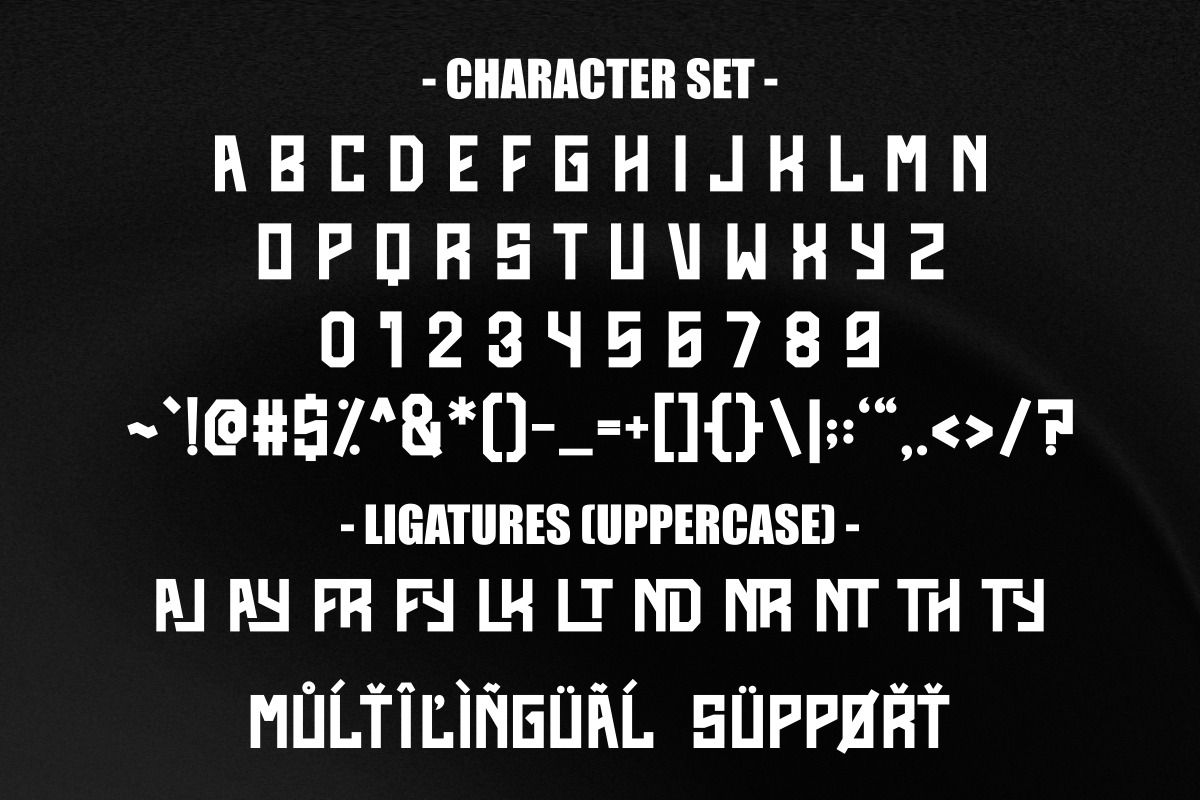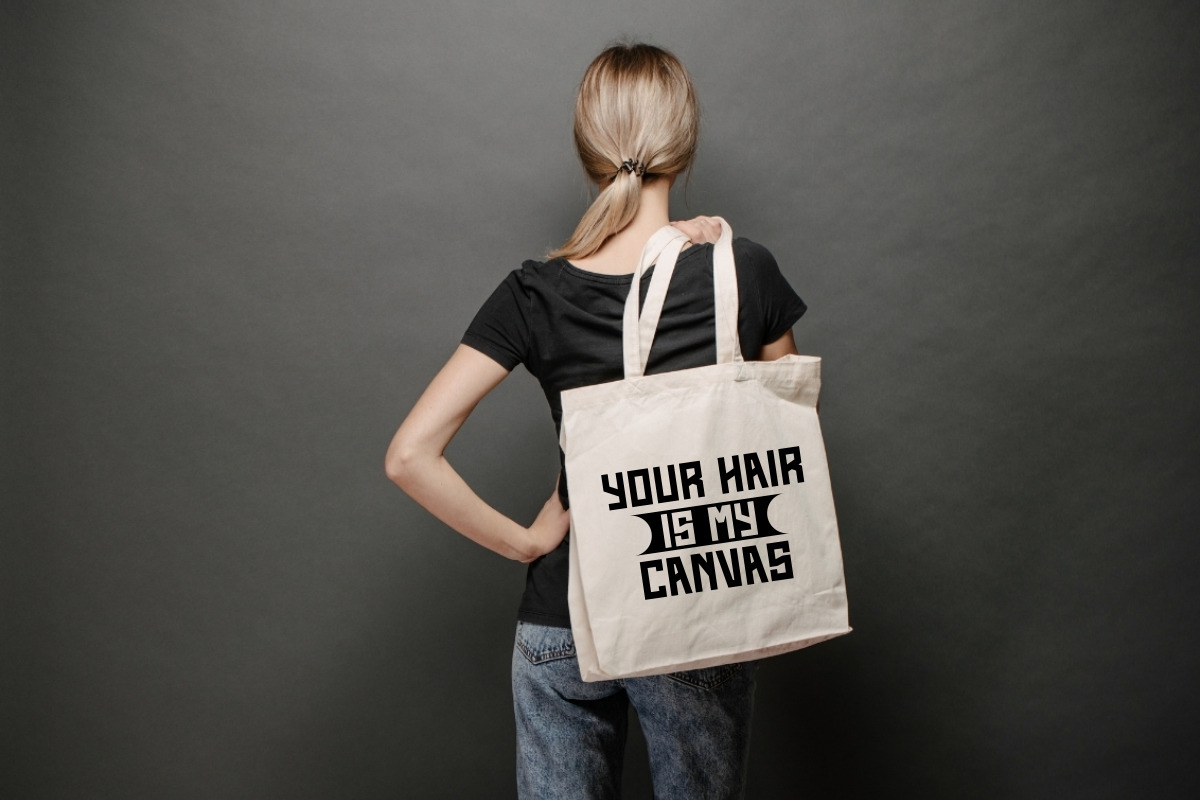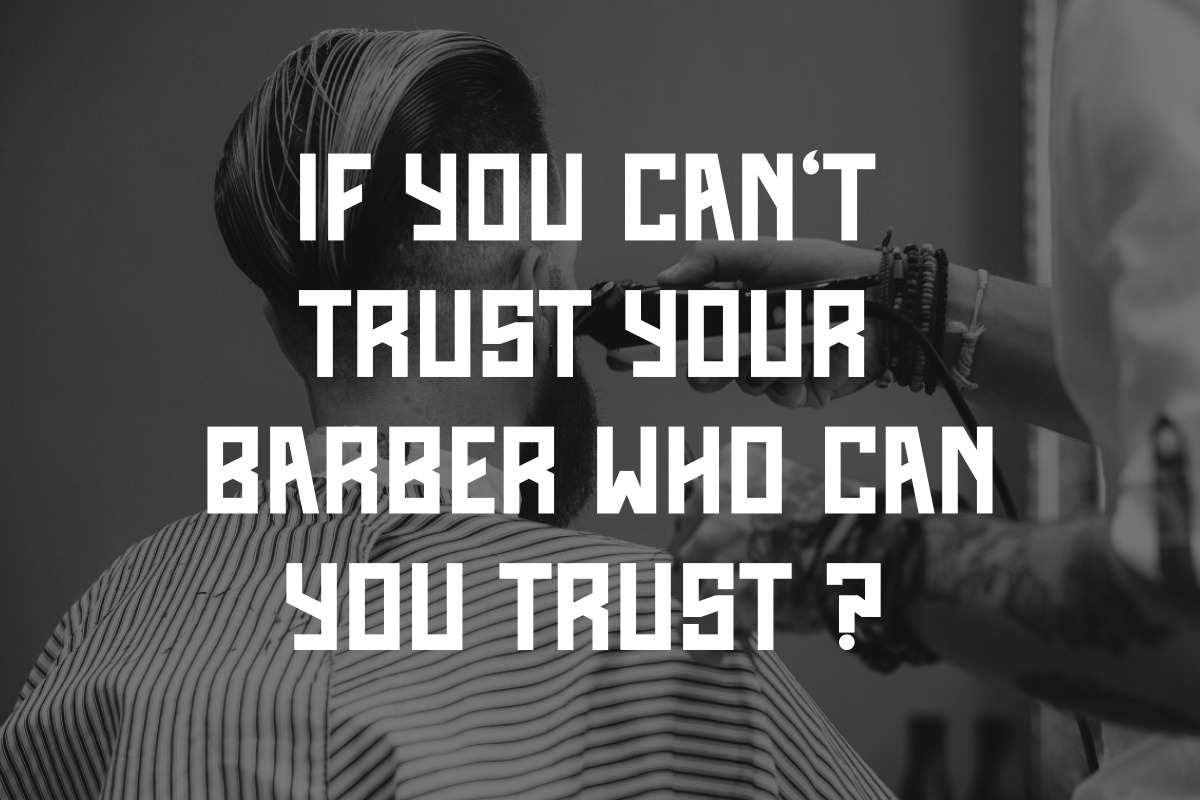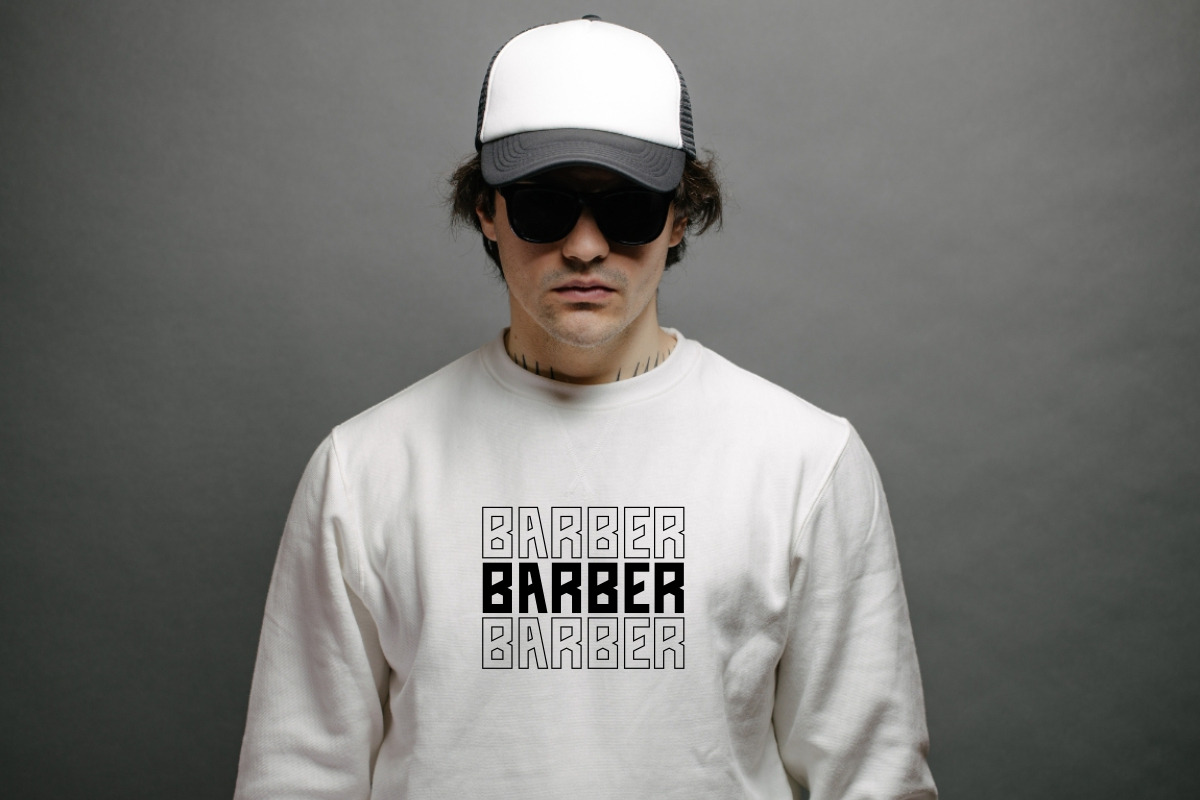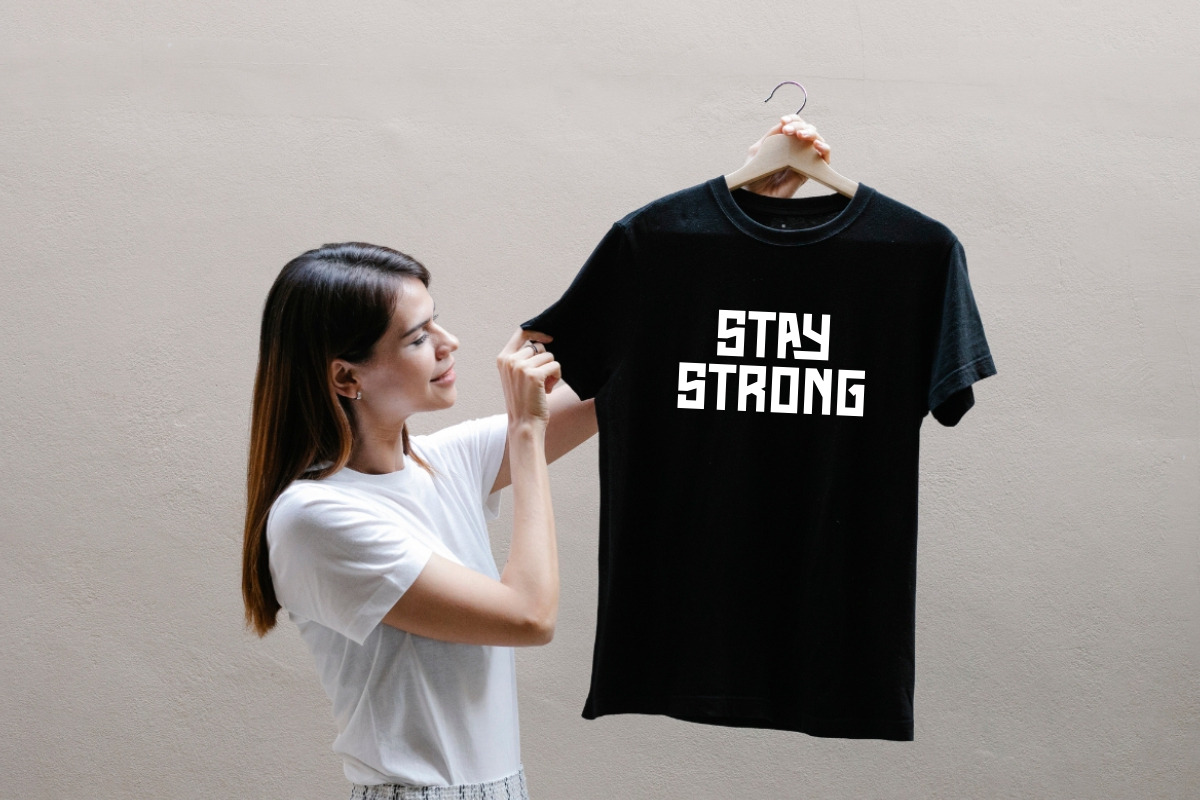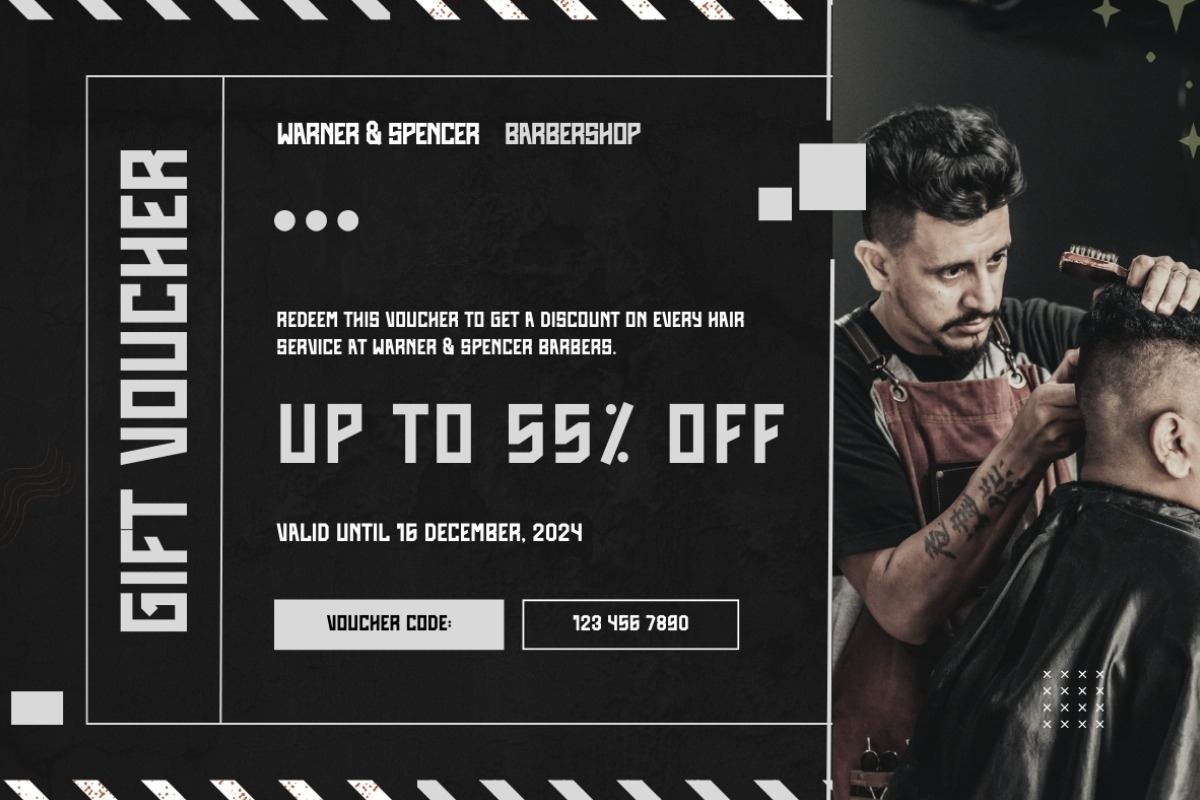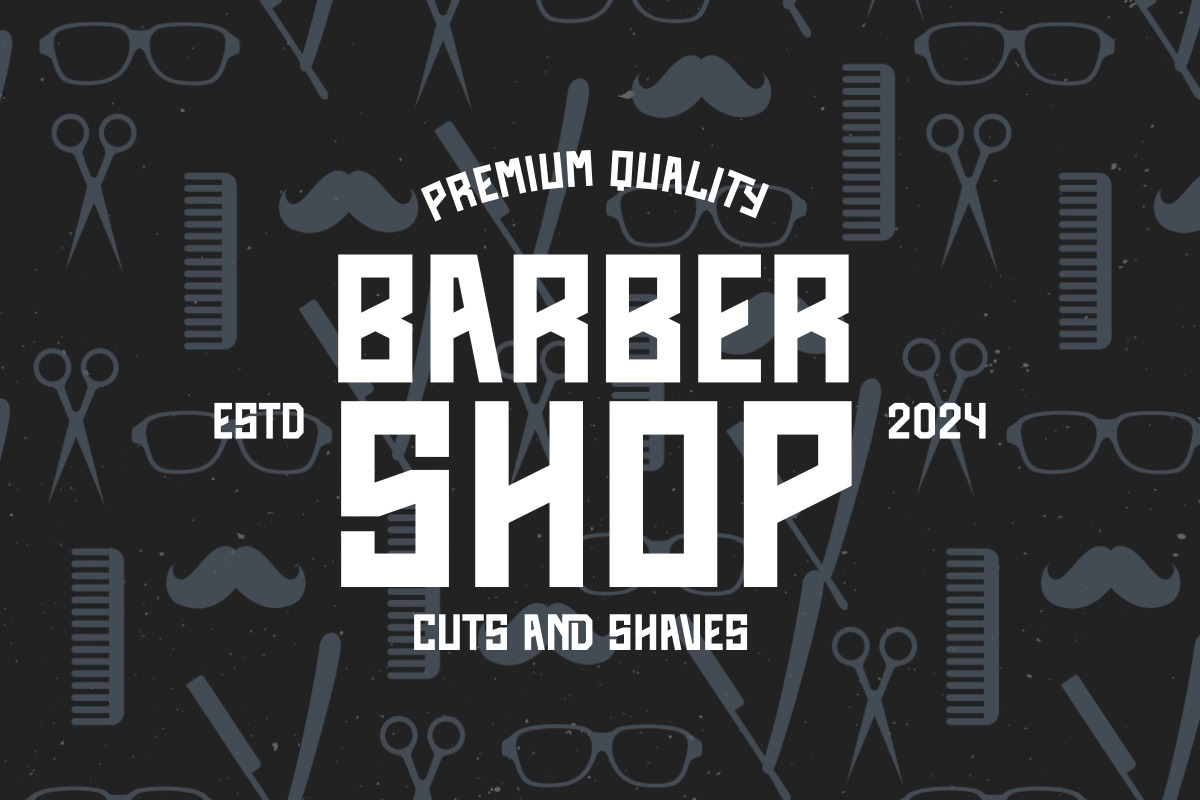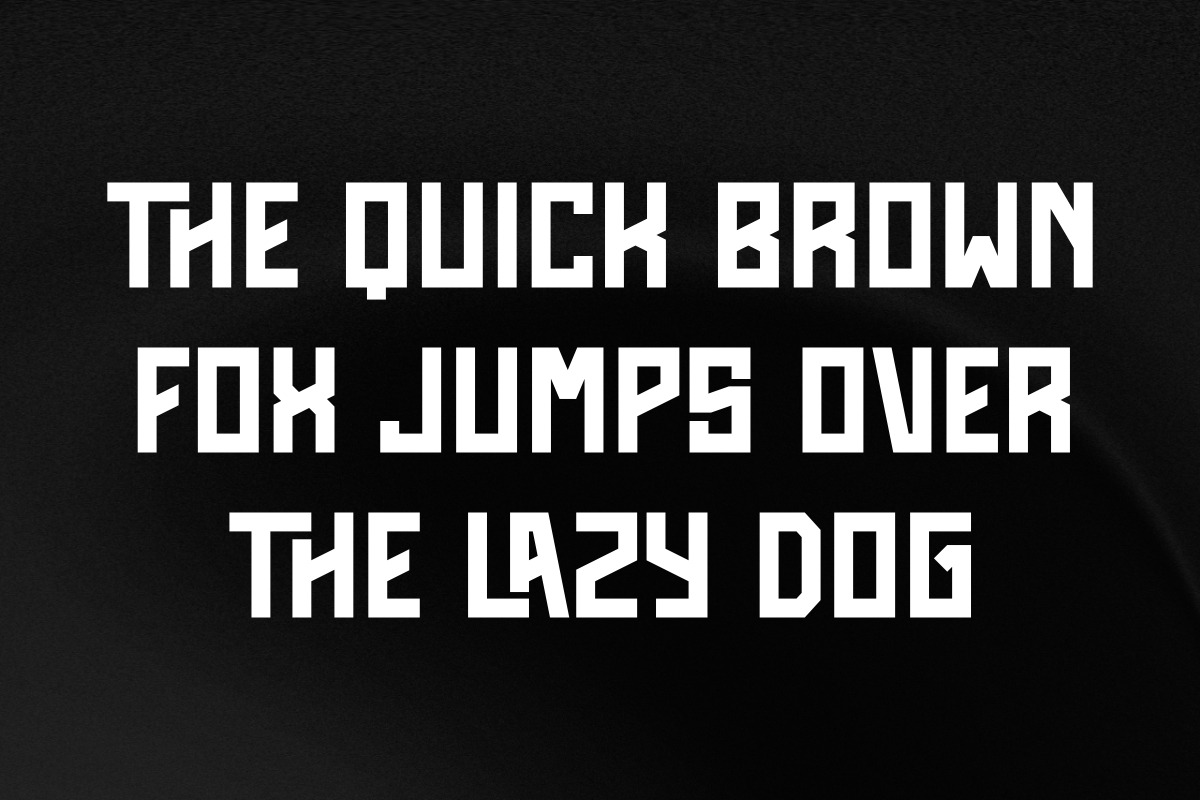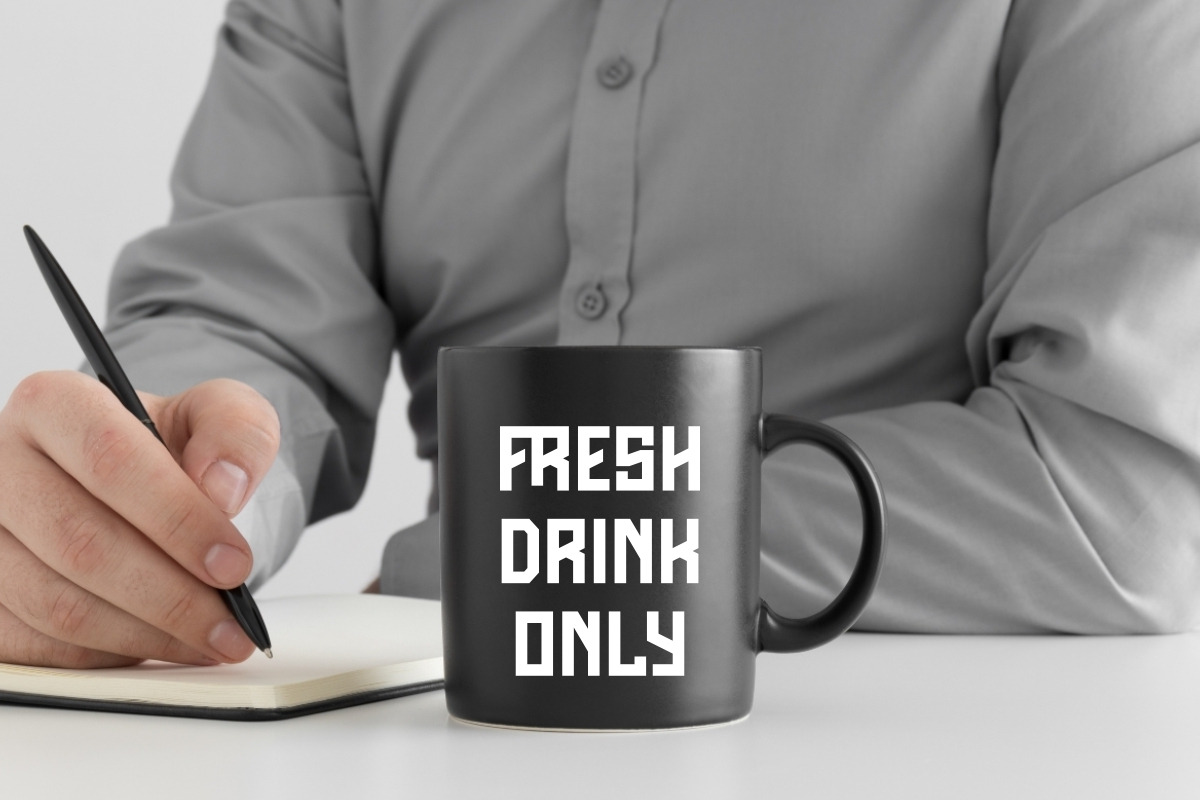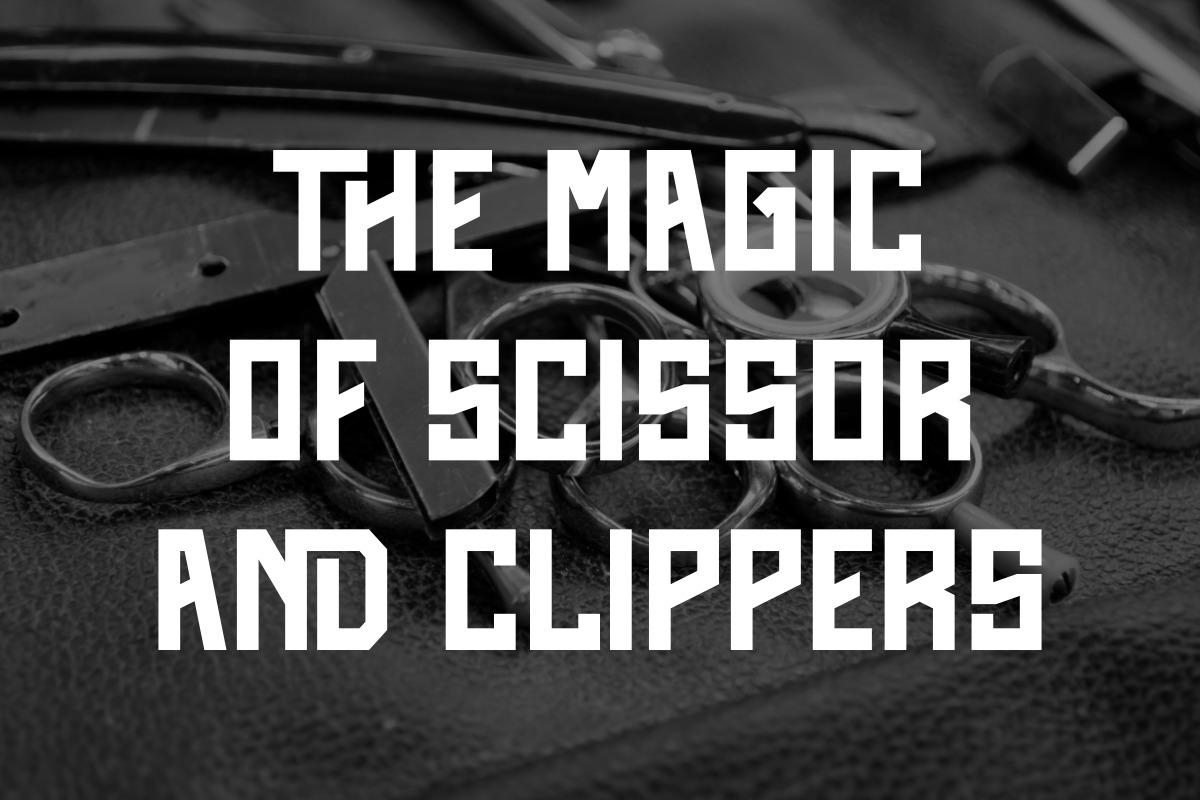
Black Swan - Classic Vintage Font
Black Swan is a bold unique and classic vintage sans serif font, inspired by retro aesthetic and current design trends. This font is perfect for quotes, backgrounds, posters, logos and headlines. It works beautifully on apparel mockups such as t-shirts, tote bags, and also great for wall art and tumbler designs. Black Swan is an excellent choice for personal branding and social media design needs, offering a versatile and stylish touch.